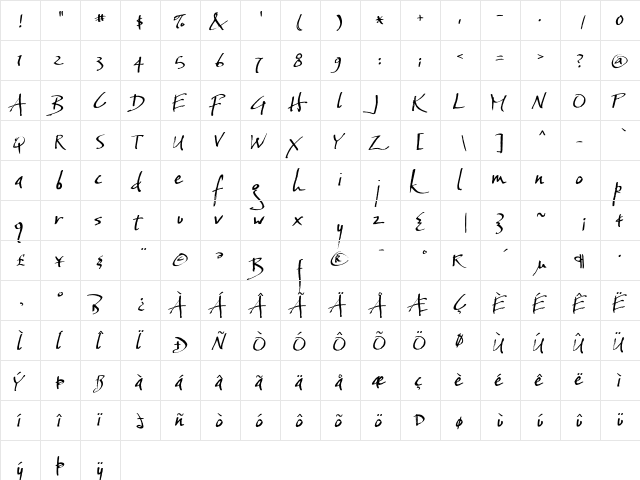
Baka Too Regular
| Foundry | Neil Summerour |
| Designer | Neil Summerour |
Design Context for Baka Too Typeface
Baka Too is a composed and adaptable typeface that performs quietly and consistently across a wide range of design contexts.